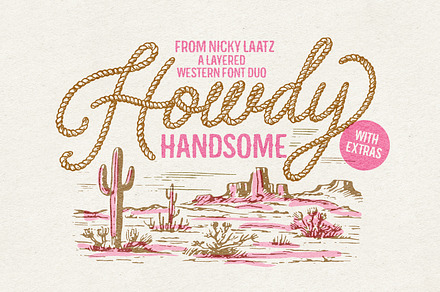
Howdy Handsome Layered Font Duo
A layered font duo where separate weights stack to build multi-colour lettering, with shadow and highlight layers supplied as individual fonts.
Layered fonts let a single typed word carry several colours without any manual outlining, since each layer is set as its own text object.
Put it to work on
• Poster and event graphics
• Apparel and merch print
• Packaging and signage
• Social and campaign design